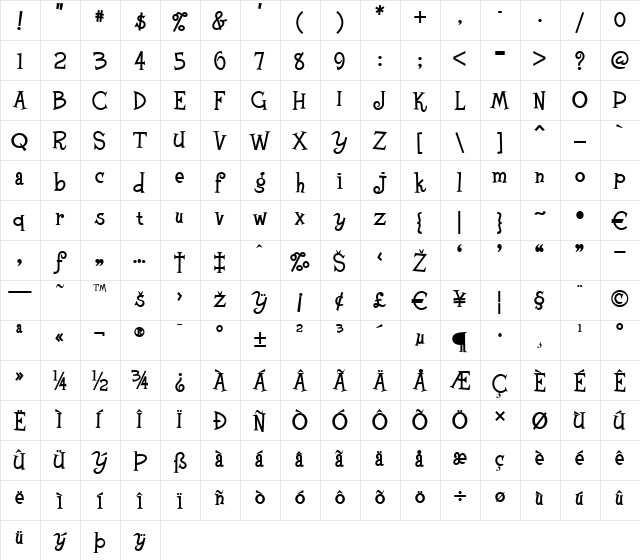
Flora Dora NF Regular Font Preview
Flora Dora NF Regular
Design Context for Flora Dora NF Typeface
Flora Dora NF is a composed and adaptable typeface that performs quietly and consistently across a wide range of design contexts.